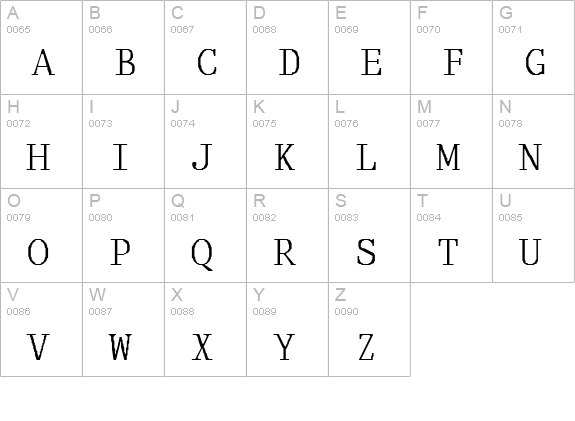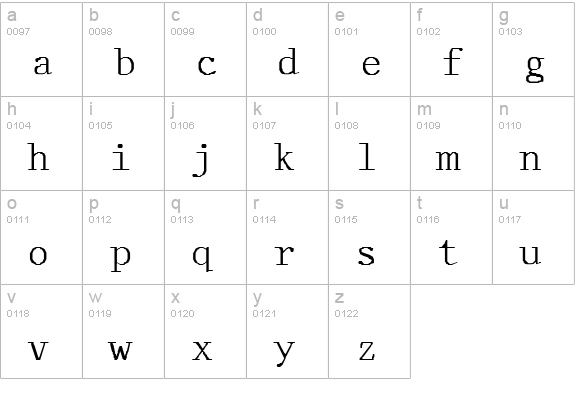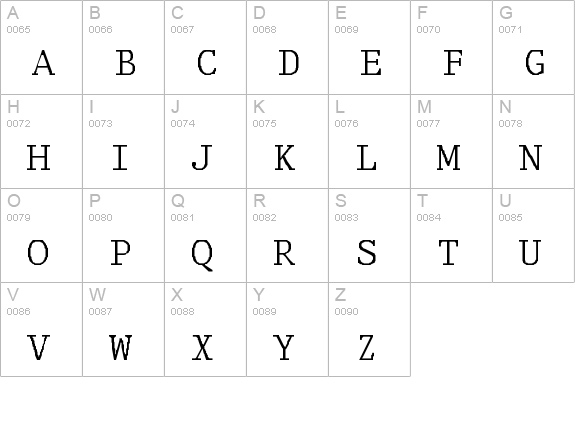
Outsider Font Details
Outsider font is a versatile and modern typeface that exudes a sense of boldness and individuality. Its unique design combines sleek lines and sharp edges, making it perfect for a wide range of creative projects. Whether you're working on branding, advertising, or editorial design, Outsider font is sure to make a statement and capture the attention of your audience. What makes Outsider font even more appealing is that it is available for free download at FontsMarket.com. This means you can add this eye-catching font to your collection without any cost, allowing you to unleash your creativity without any limitations. Stand out from the crowd and elevate your designs with the distinctive style of Outsider font.